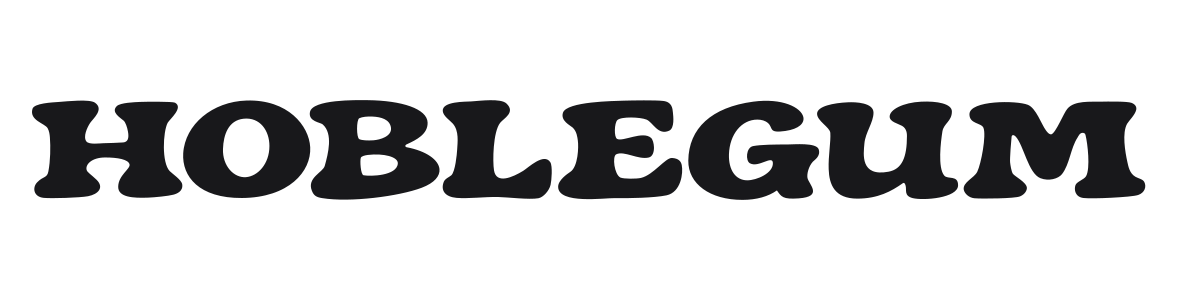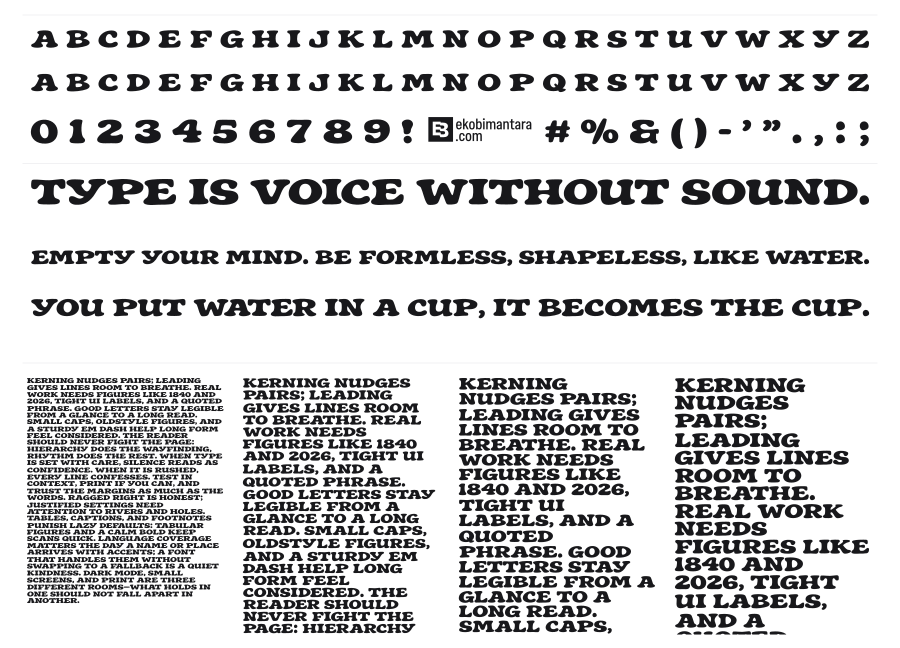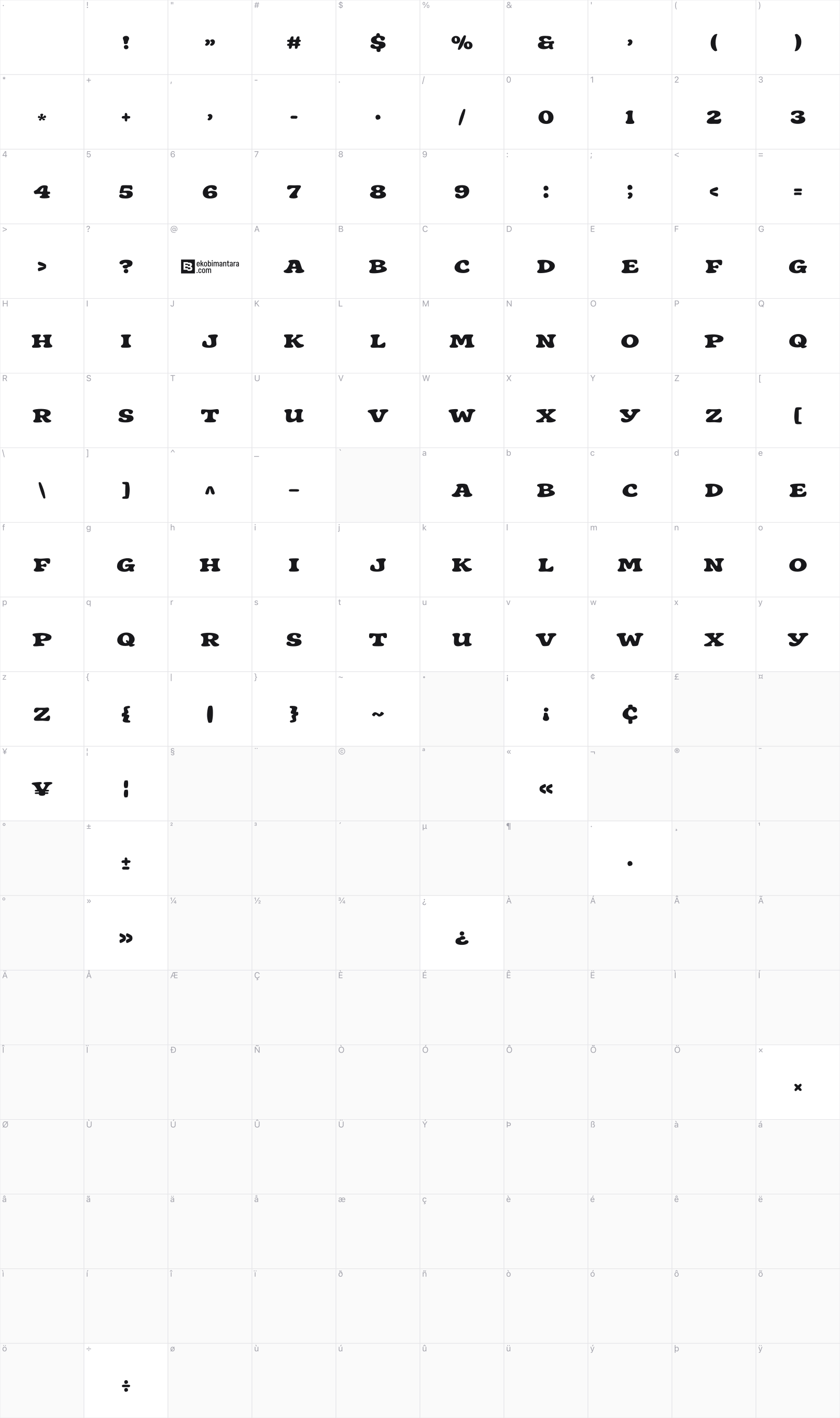
Hoblegum
by Eko Bimantara
Hoblegum is a heavy slab serif with thick bracketed serifs and a distinctly 1970s groovy personality. The chunky, wide characters carry a casual irreverence that makes them hard to ignore at large sizes. It reads fun without feeling cheap, landing somewhere between vintage diner signage and bold editorial design.